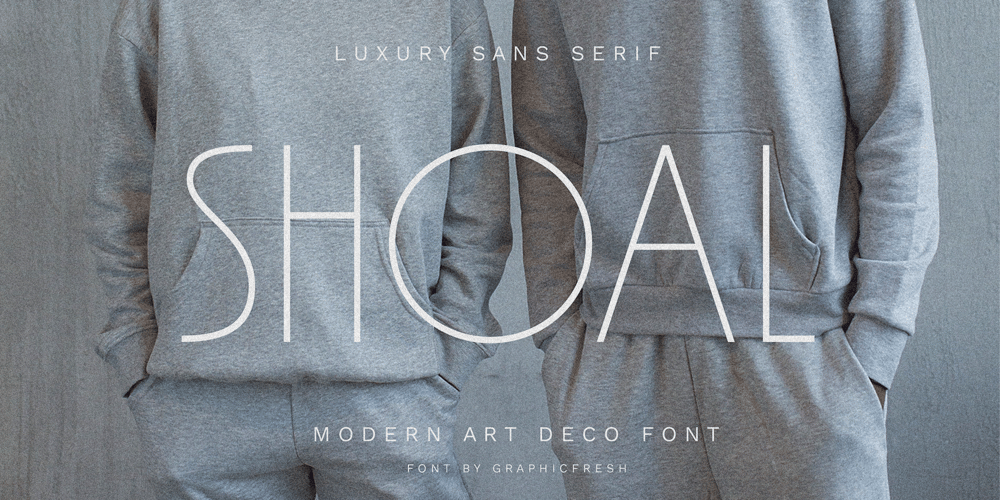
Shoal
Shoal font
Shoal Font Family was designed by Muhammad Husni Haikal and published by Graphicfresh. Shoal contains 6 styles and family package options. Adaptation to the 1920s design style which is synonymous with luxury and elegance. Its form is rigid, and stratified, and stands out in the height of its character. This font was created to recognize the famous design style of the time.